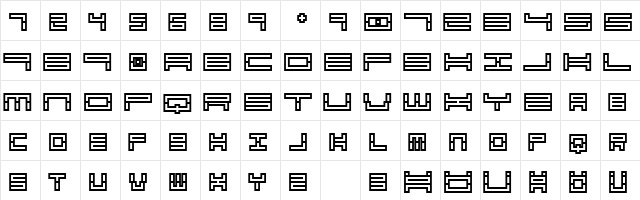
Pile Outline
| Style | Outline |
Design Context for Pile Typeface
Pile brings ornamental detail and strong personality to headlines and identities, where visual impact matters more than quiet functionality.
Font Pairing: Pair with a clean neutral sans-serif for body copy to let Pile's character lead without overwhelming the composition.
Pro Tip: Use Pile exclusively at display sizes — it was designed to be seen, not read at length. Let a neutral companion handle body copy.